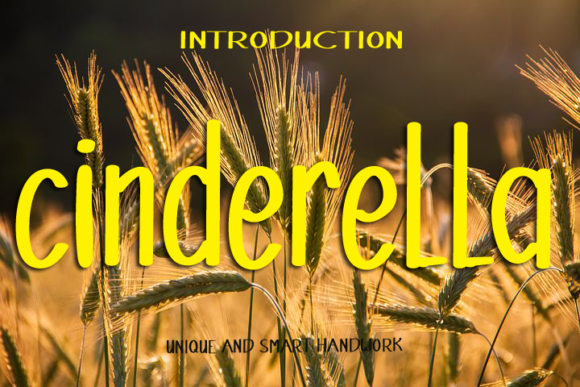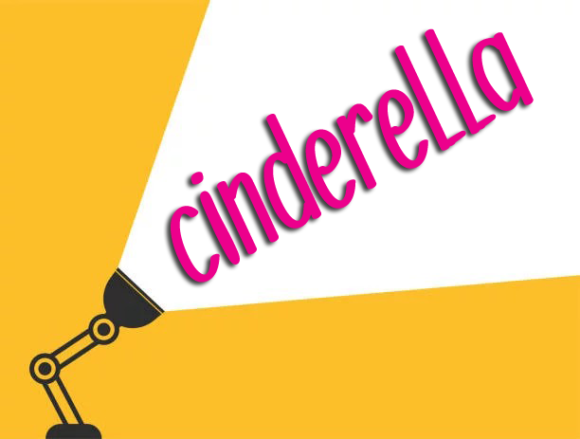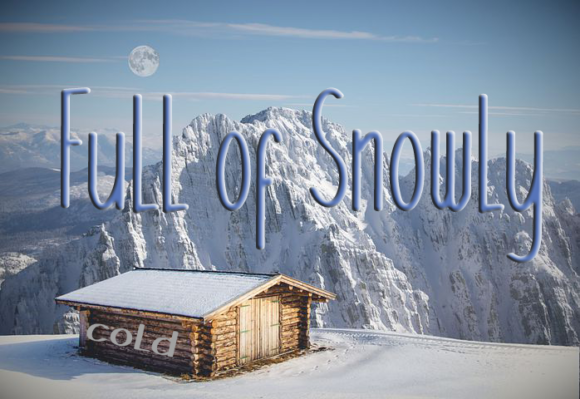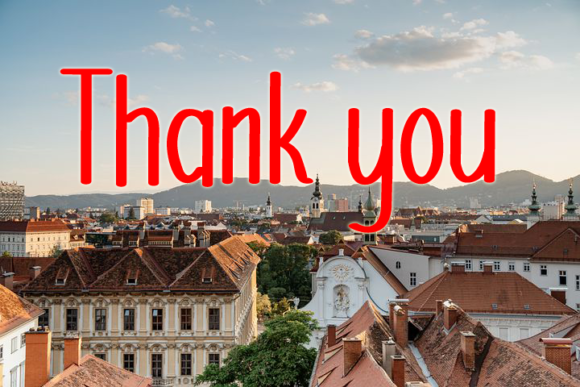
Cinderella Font
About Cinderella Font
Cinderella is a unique and smart handwritten font. No matter the topic, this font will be an incredibly asset to your fonts’ library, as it has the potential to elevate any creation.